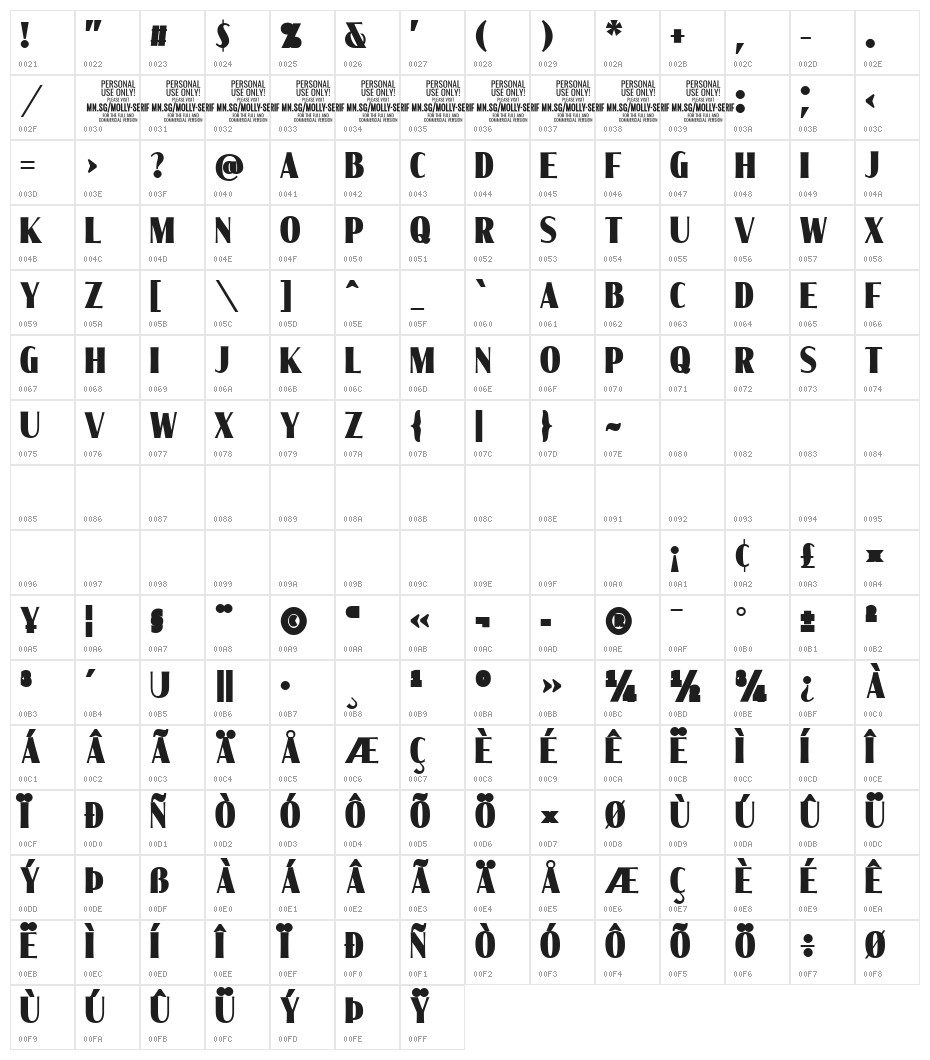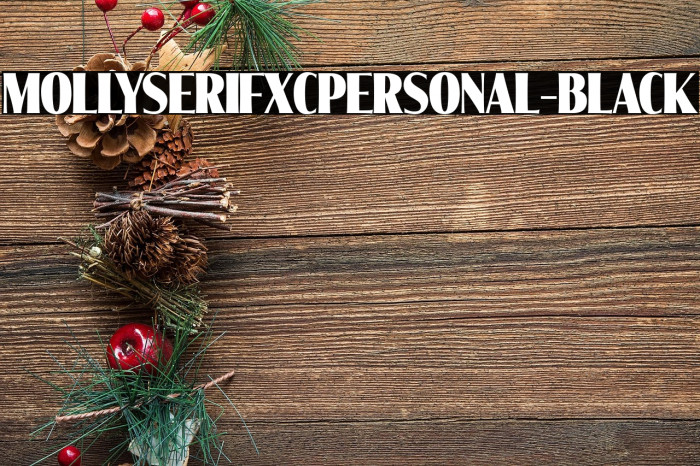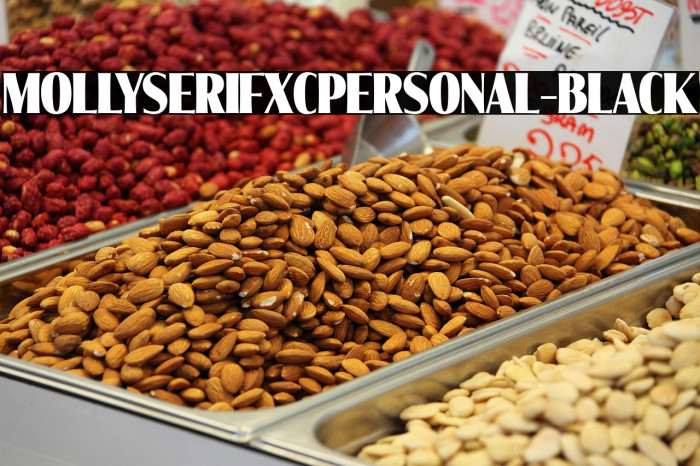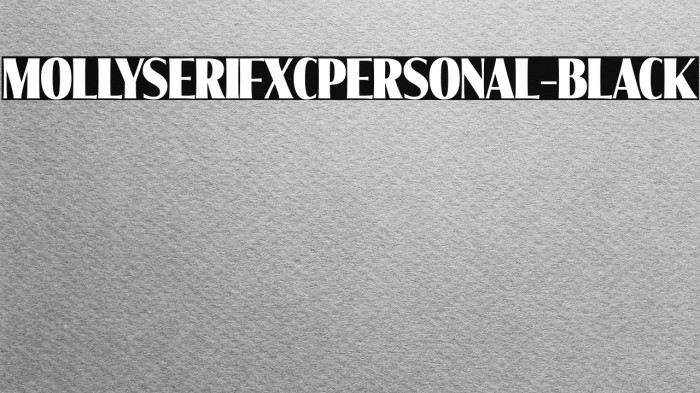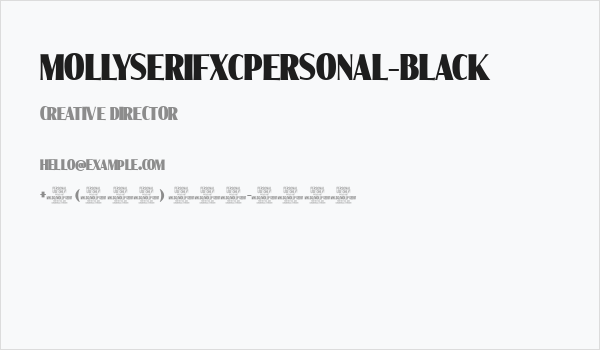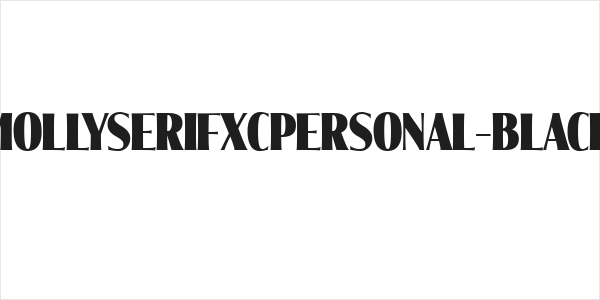
MollySerifXCPERSONAL-Black Font
MollySerifXCPERSONAL-Black Description
This font features bold, dramatic strokes with a high contrast between thick and thin lines, giving it a striking and impactful appearance. The characters are designed with a modern flair, incorporating sharp angles and unique curves that add a sense of elegance and sophistication. The uppercase letters are particularly prominent, with a strong presence that commands attention. The lowercase letters maintain the same boldness, ensuring consistency throughout the typeface. Special characters are included, each crafted with the same attention to detail and style. Overall, this font exudes a sense of confidence and modernity, making it suitable for a variety of design applications.
| Proposed Projects | Ideal for branding, headlines, posters, and any design project that requires a strong visual impact. |